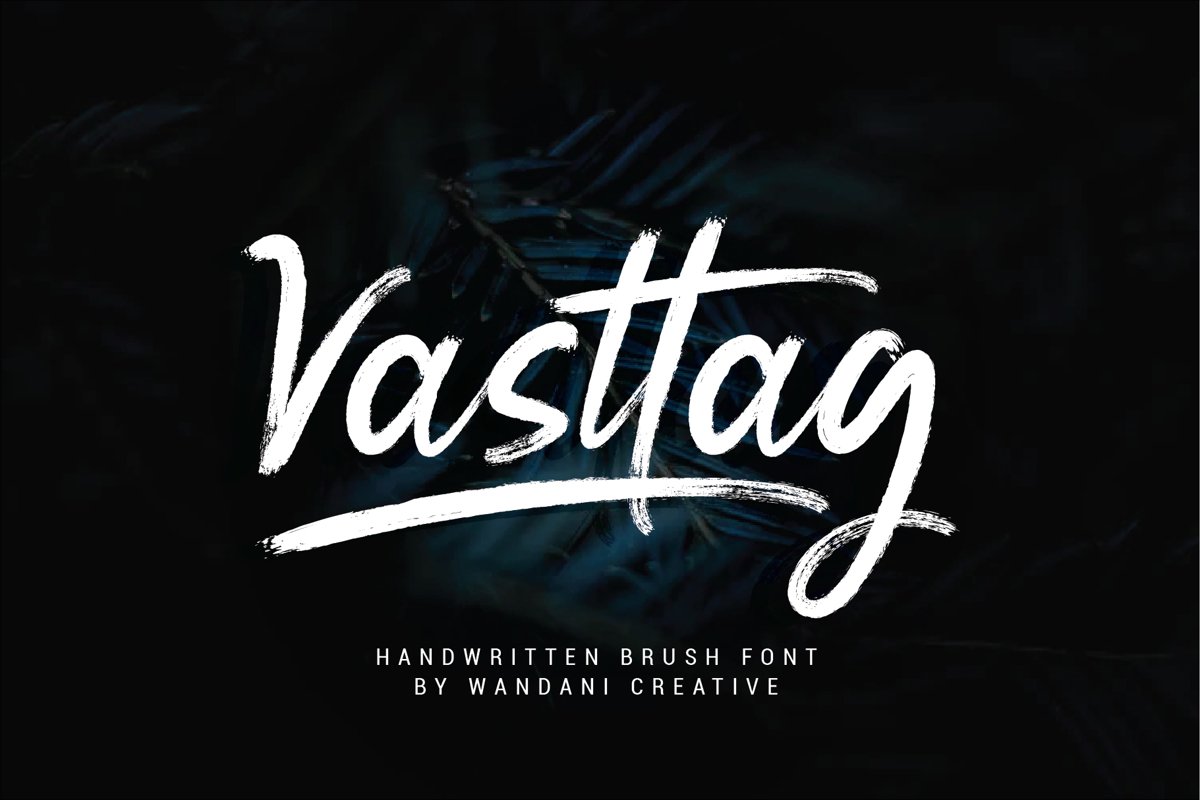
Vasttag Brush Font
Vasttag Brush is a must-have font that is beautiful and suitable for all types of designs. It's perfect for greeting cards, branding, stationery design, social media, packaging, magazine layout, prints, and more.